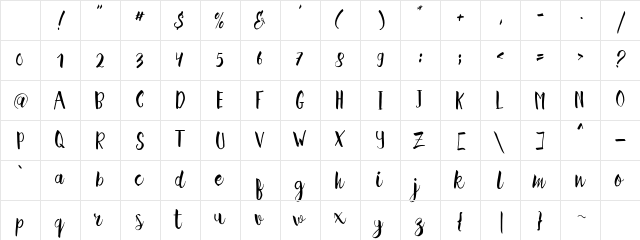
Hellena Script flows with the natural rhythm of handwritten lettering, making it ideal for designs that call for warmth and personal expression.
Font Pairing: Combine Hellena Script with a simple geometric sans for maximum contrast - the tension between flowing curves and clean structure is a classic typographic pairing.
Pro Tip: Use Hellena Script for short runs of text - names, titles, or taglines. Extended body copy in script faces tires the eye quickly.